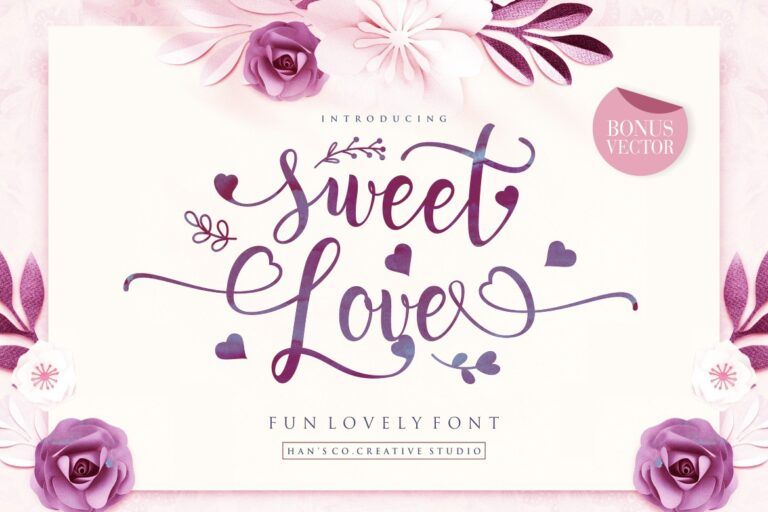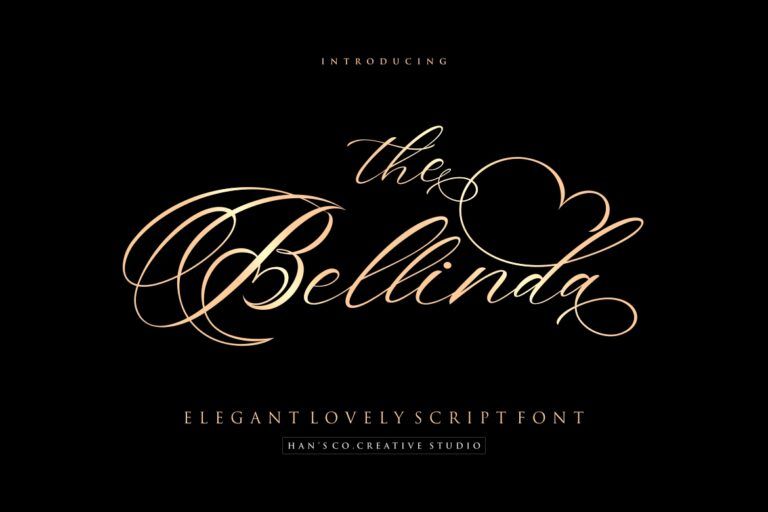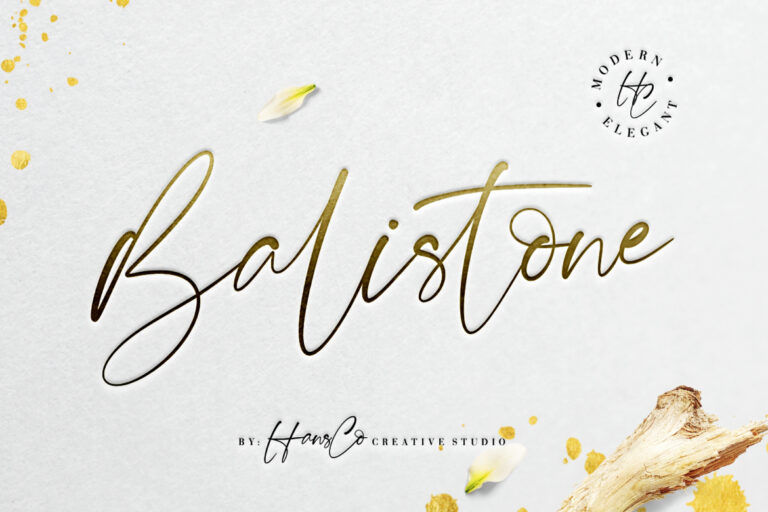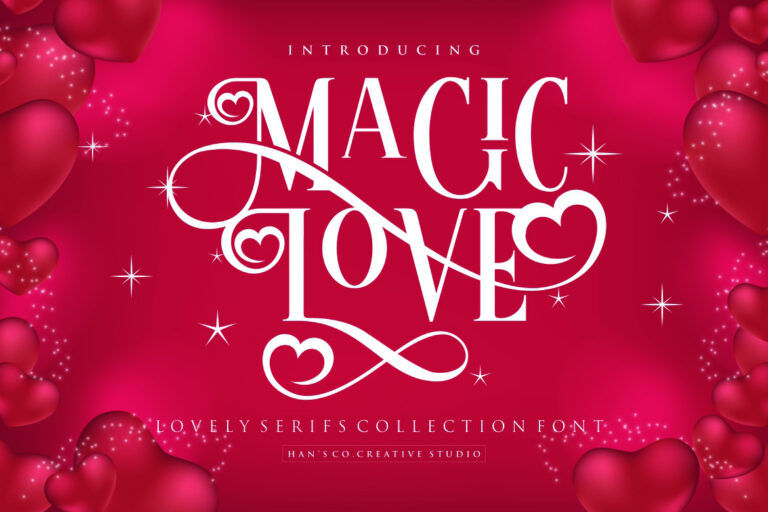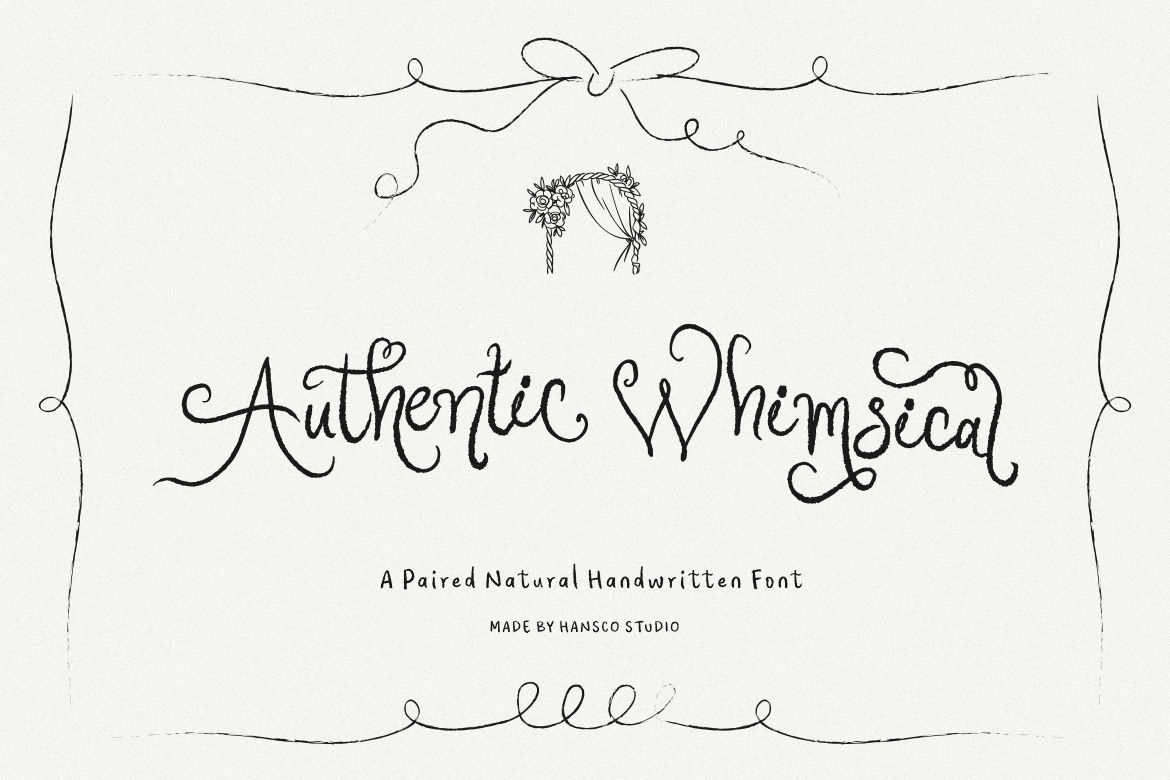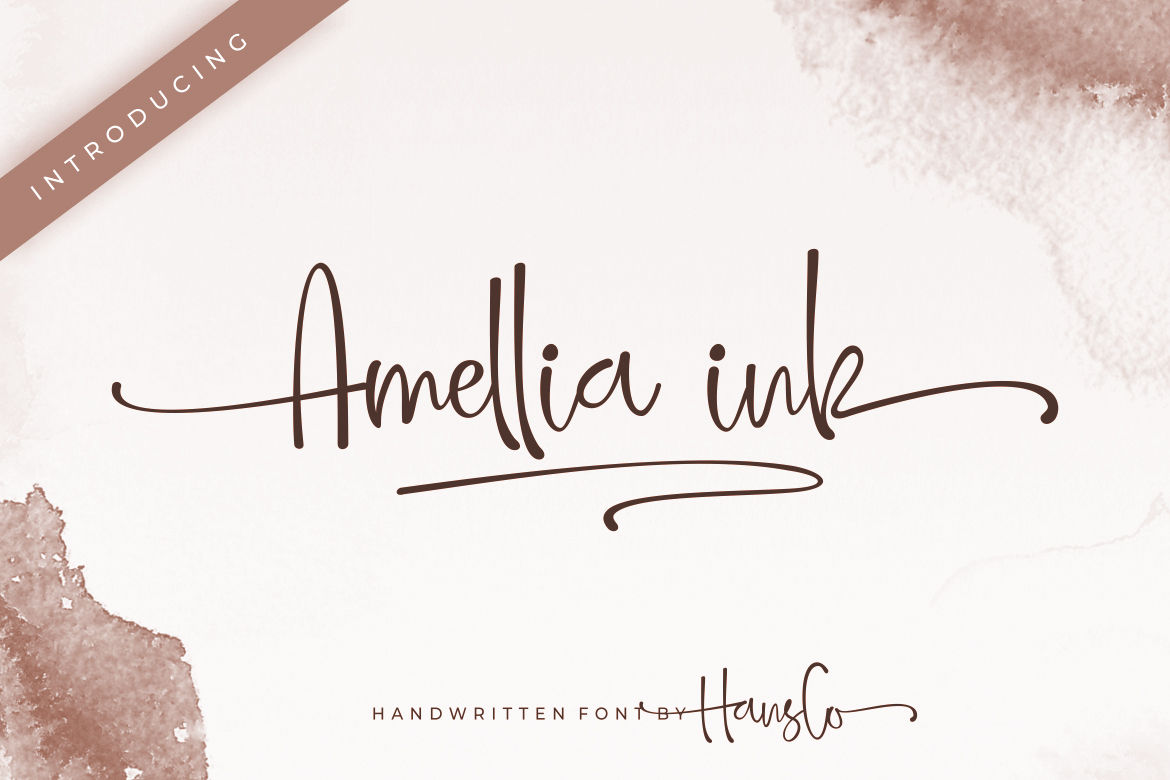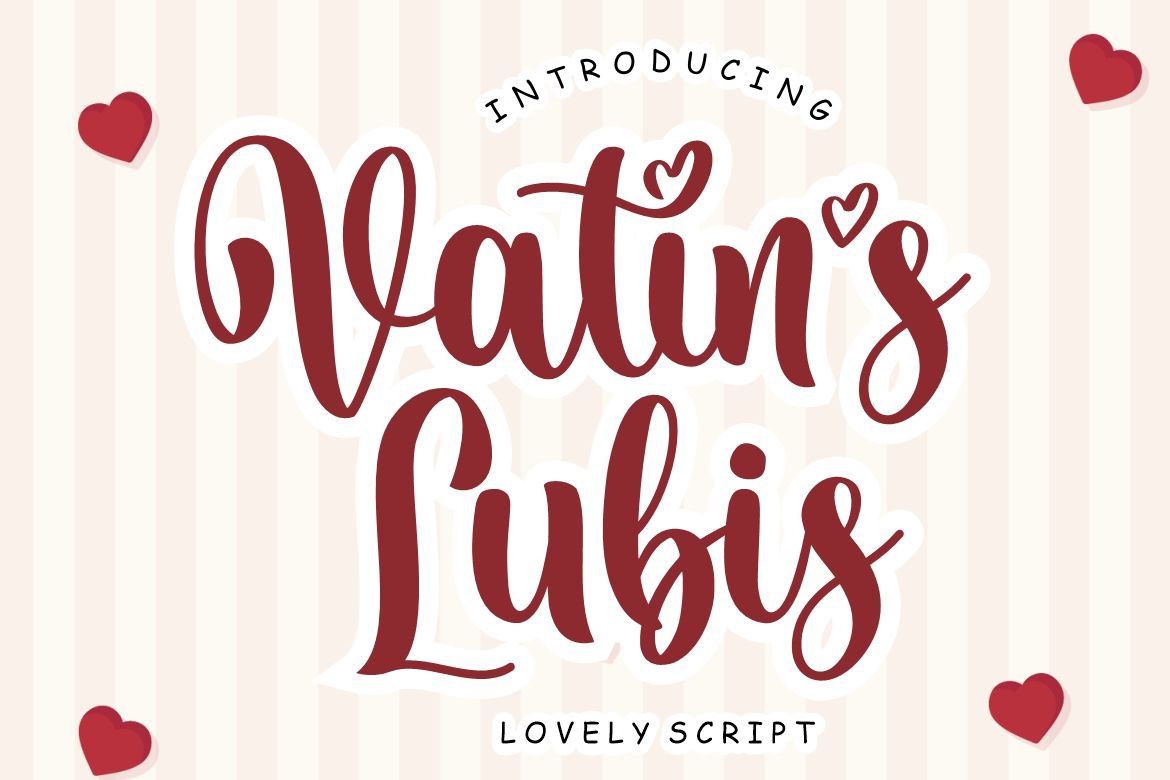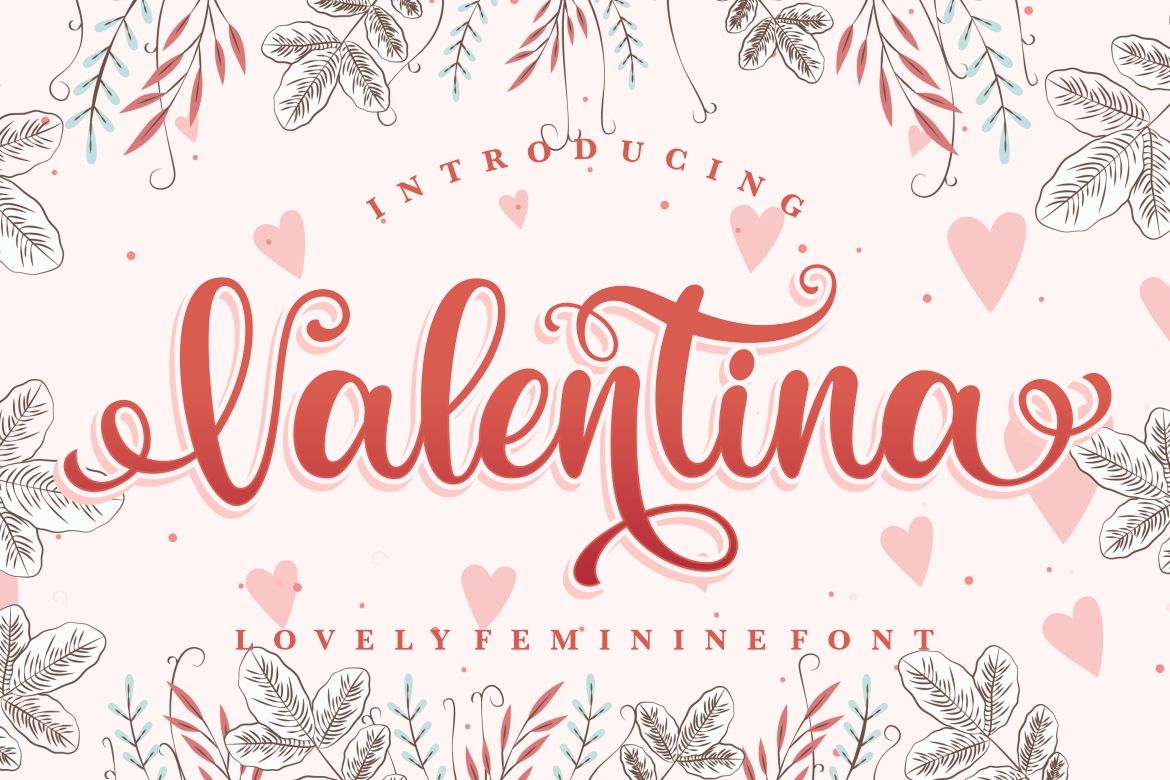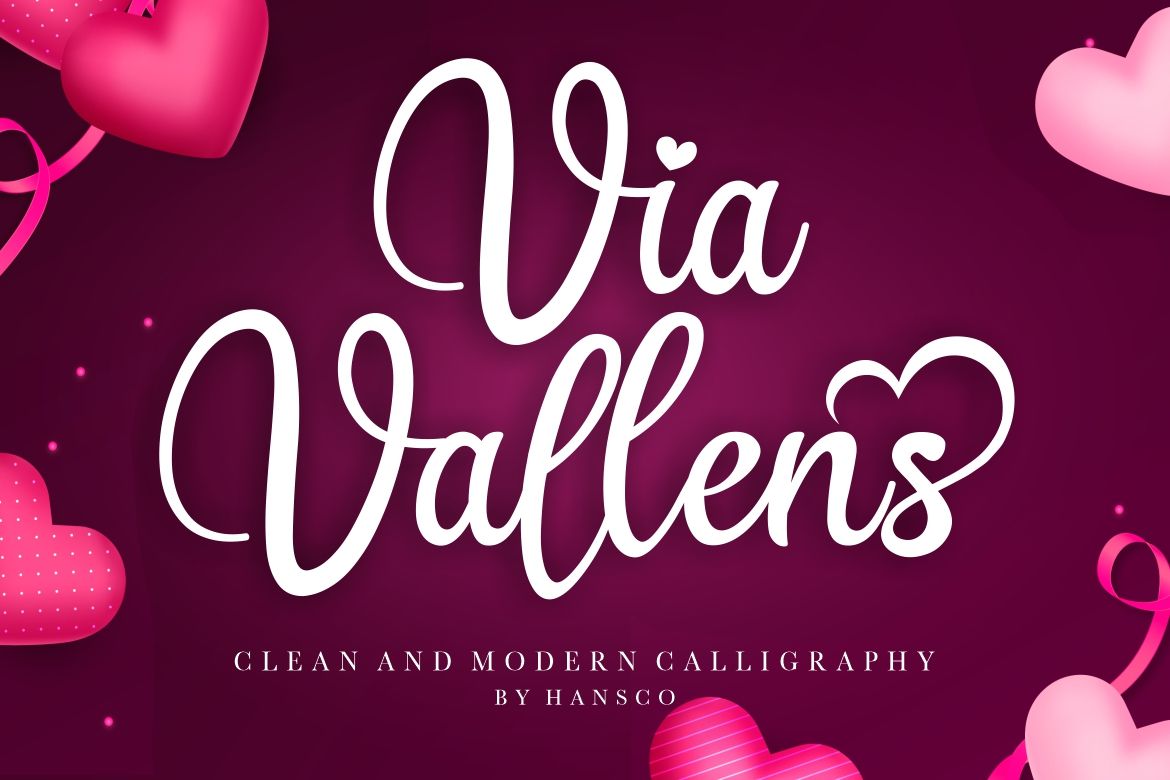
10 Chic Wedding Fonts for Elegant Wedding Invitations
Celebrating a big and special wedding day needs extra preparation. It may start by designing your dream wedding invitation and selecting the right wedding fonts. Sometimes, people don’t really pay attention to the process because it seems like trivial elements.
But it’s totally not. Specific fonts can create a different aesthetic effect and impression on your invitations. This article will reveal why choosing the right fonts matters with 10 ultimate recommendations to help you find one that suits your styles and wedding themes.
Let’s check them out!
Why Wedding Fonts Matters for Your Wedding Invitations?
Wedding invitation basically is not just a paper or one-page digital layout. It’s a cherished memento that goes beyond informational delivery. Choosing the right font can bring huge effect to the designs, and here is why you should not ignore the importance of font selection:
⦁ Defining the Ambience
Fonts can effectively define the ambience of the wedding event. It conveys directly to the guests the main themes and atmosphere of your special day, whether it is rustic, romantic, classic, modern, or even traditional.
⦁ Expressing Couple’s Styles
Certain fonts, like script and typewriter style deliver a whimsical vibe, while the others may evoke romantic feelings. For this reason, selecting certain types of fonts can be a delicate way to express a couple’s aesthetic preferences.
⦁ Create Memorable Design
Wedding fonts exist not only to complement your wedding invitation theme. It may evoke deep emotional feelings, especially for your closest ones and become a memorable design that will be treasured for a long time.
⦁ Improve Readability
Selecting the right fonts matters as it can improve readability of your wedding invitation. If you are using the wrong type or style, it will be difficult for guests to spell out the essential information, such as the date and place of the events.
⦁ Spark Guests’ Interest
Guests mostly put their first attention on font selection while they are reading your wedding invitations. An attractive font type will spark guests’ interest and provoke excitement to attend the special event.
10 Wedding Fonts for Elegant Wedding Invitations
After finding out about the power of font selection on your wedding invitation, let’s explore further into the following chic fonts from HansCo Studio. These recommendations are unquestionably impactful to create elegant invitations and captivating impressions.
1. Balistone
Balistone became the ultimate recommendation for elegant fonts with its unique ballpoint ink style.
The ligatures create a sleek and premium effect, making your wedding invitation look luxurious. It will perfectly match your romantic or modern wedding themes.
2. Bellinda
The flowing curves of Bellinda give a romantic and sophisticated effect. The strokes flourishing softly add more emotional depth and warmth. It also greatly sets the atmosphere, mirroring the specialness of the event.
Not merely looking excellent in invitation, this font also looks stunning on welcome signs, thank you notes, and place cards. It promotes versatility across distinct types of your wedding elements.
3. Sweet Love
Sweet Love is one of wedding fonts that conveys the sweet and tenderness of love. The slight calligraphy styles combined with legible swashes balance the elegance and practicality.
Its unique sign of love on each curls represents the symbolism of a special wedding day. If you are into classic and elegant themes, Sweet Love should be your top consideration to compliment your wedding invitations.
4. Magic Love
Magic Love is a gorgeous font for lovely and elegant invitation, but still maintaining readability over aesthetic aspects. It will fit modern, classic, and rustic wedding themes.
Try to pair them with serif font for information detail to give familiarity effect. You also need to leave some spaces to let the font stand out and look opulent.
5. Merisa
If you are aiming to have a wedding under elegant yet approachable themes, Merisa can be an interesting choice to add into the festivhttps://hanscostudio.com/product/merisa/ities.
This typeface is adorably cute and classy. Combining with other fonts such as serif led the elegance and cuteness shine at the same time.
6. Via Vallens
Via Vallens is a visually pleasing wedding font for its feminine touch and soft strokes. It’s a pretty typeface with chic handwritten style, perfect for leveling up your rustic and garden themes.
7. Vatin’s Lubis
It’s one of the wedding fonts that will look gorgeous in all types of designs. The gentle curves and delicate lines offer a romantic atmosphere, creating more personal invitation. It also has balanced elegance to enhance your invitation aesthetics.